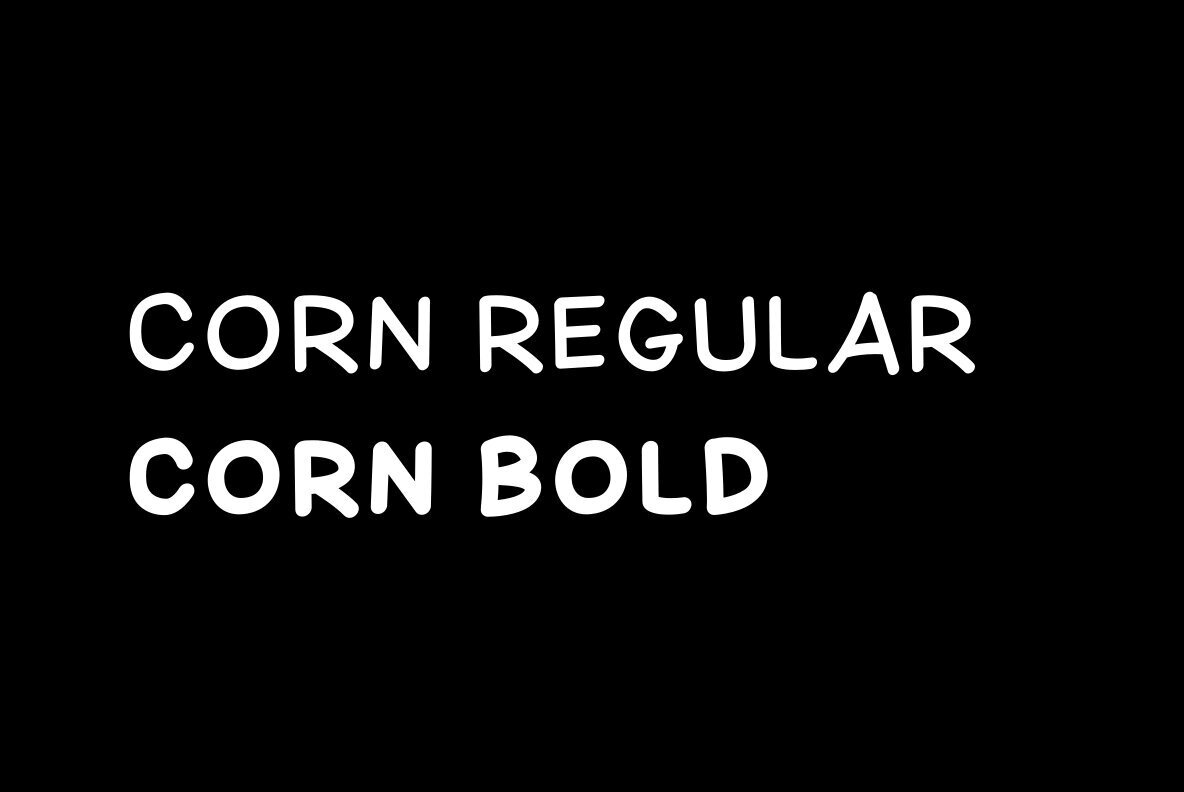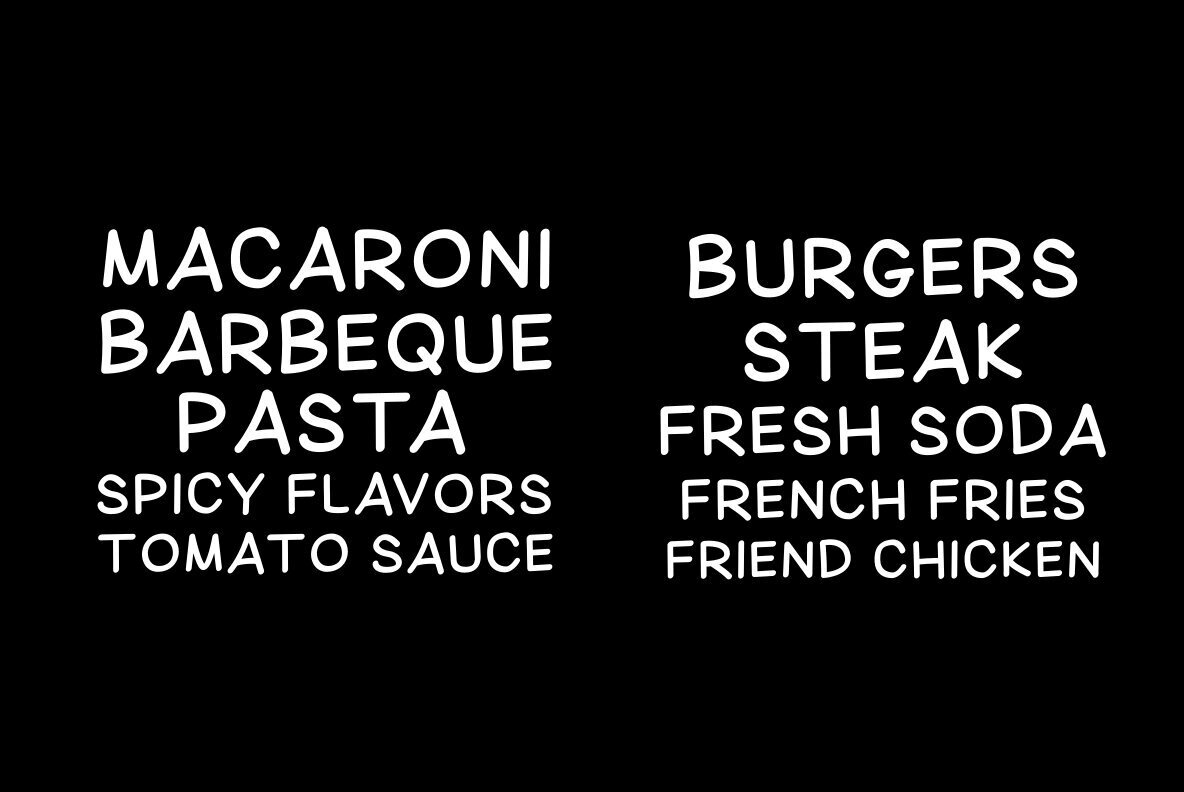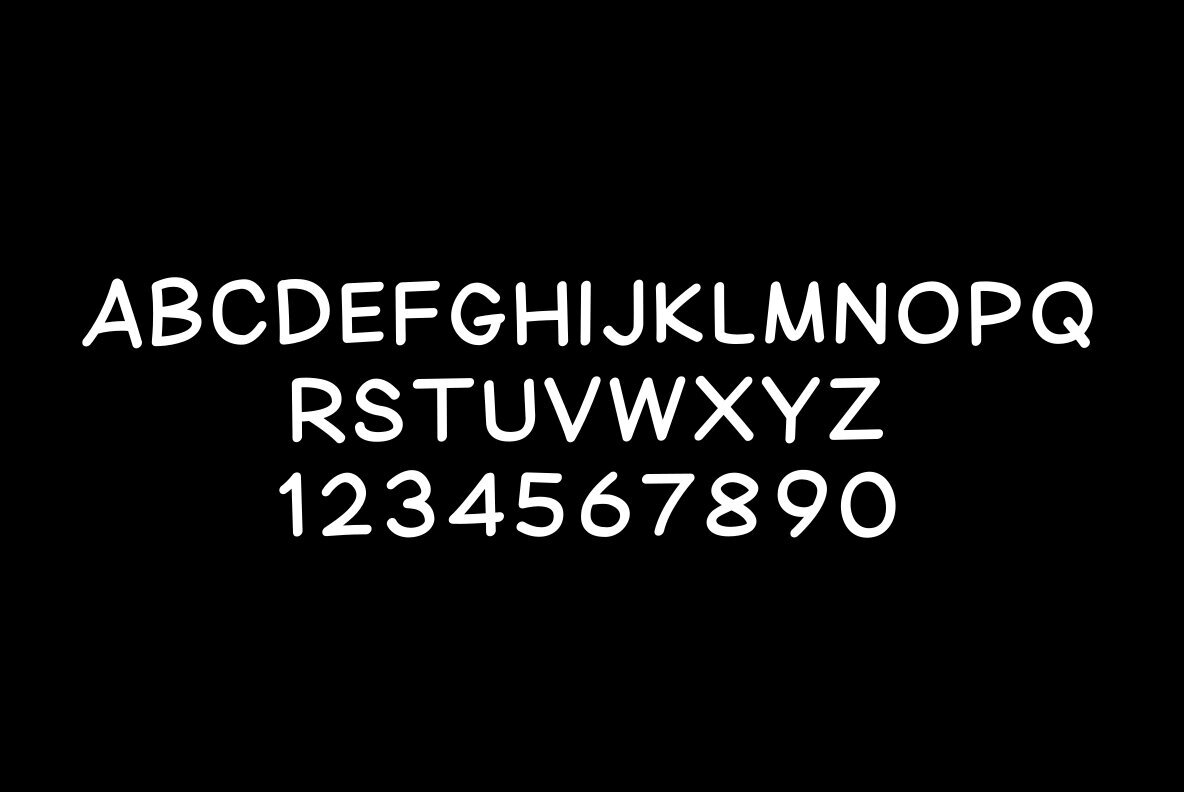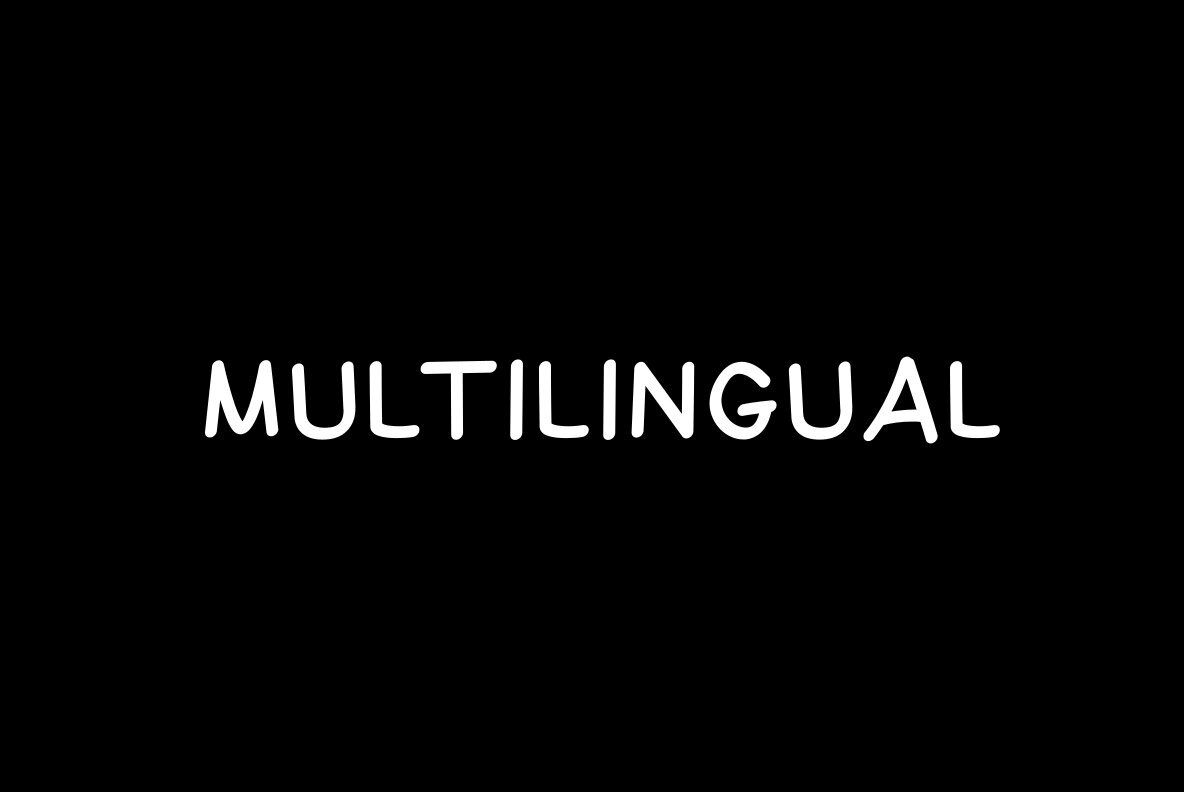
Corn Font
The Corn font offers a handwritten design with a laid-back vibe, perfect for infusing a casual touch into your projects. Featuring two distinct styles—regular and bold—this versatile font is ideal for various casual-themed designs.Corn: Handwritten Font with Casual Styles